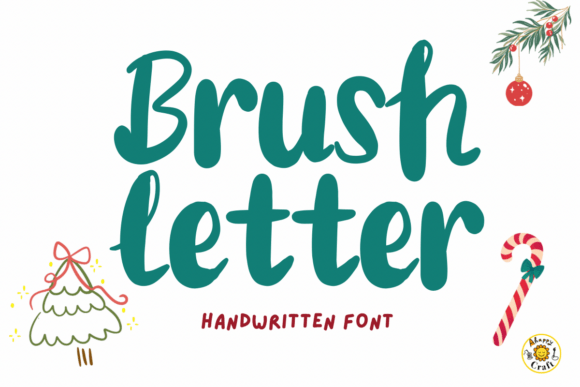
Introducing Brush Letter Font: The Ultimate Holiday Cheer Companion
Are you looking for a font that embodies the spirit of the holiday season? Look no further than Brush Letter Font, an incredibly cheerful, bright, and bold handwritten font designed to spread maximal holiday cheer with its adorable, playful style. In this article, we’ll dive into the unique features of Brush Letter Font and explore its endless possibilities for designers, crafters, and anyone looking to add a touch of festive fun to their projects.
The Unique Features of Brush Letter Font
The font’s defining uniqueness lies in its bubbly, slightly uneven strokes and plump shape, which give the characters a bouncy, handmade look. These distinctive features perfectly complement the vibrant, contrasting color palette, making Brush Letter Font a standout in any design. The font’s playful style is reminiscent of traditional holiday decorations, evoking feelings of nostalgia and warmth.
Ideal Uses for Brush Letter Font
Brush Letter Font is ideal for a wide range of projects that require a happy, colorful, and warm dose of Christmas personality. Some of the most popular uses for this font include:
- Children’s holiday books: Add a touch of magic to your storybook with Brush Letter Font’s playful and cheerful style.
- Festive party invitations: Create eye-catching invitations that set the tone for a fun and festive celebration.
- Custom apparel: Design holiday-themed t-shirts, hoodies, and more with Brush Letter Font’s bold and colorful style.
- Digital Christmas crafts: Add a personal touch to your digital crafts, such as printable art, gift tags, and more.
- Fun classroom decorations: Create engaging and interactive holiday displays with Brush Letter Font’s playful style.
Why Designers and Crafters Love Brush Letter Font
Designers and crafters alike will fall in love with Brush Letter Font’s versatility and ease of use. The font’s bold and playful style makes it perfect for a wide range of projects, from digital designs to handmade crafts. With Brush Letter Font, you can:
- Add a personal touch: The font’s handmade look and feel add a personal touch to any project, making it perfect for crafters and designers who want to create unique and special designs.
- Save time: With its bold and playful style, Brush Letter Font saves you time and effort in creating intricate and detailed designs.
- Experiment with colors: The font’s vibrant and contrasting color palette makes it easy to experiment with different color schemes and combinations.
Tips and Tricks for Using Brush Letter Font
To get the most out of Brush Letter Font, here are some tips and tricks to keep in mind:
- Mix and match: Experiment with different font sizes, colors, and styles to create a unique and eye-catching design.
- Add textures and patterns: Add an extra layer of depth and interest to your design with textures and patterns that complement the font’s playful style.
- Keep it simple: Don’t be afraid to keep your design simple and clean, allowing the font’s bold and playful style to take center stage.
Brush Letter Font is the ultimate holiday cheer companion for designers and crafters. With its unique features, endless possibilities, and ease of use, this font is sure to bring a smile to anyone’s face. Whether you’re creating children’s holiday books, festive party invitations, or custom apparel, Brush Letter Font is the perfect choice for adding a touch of festive fun to your projects. So why wait? Download Brush Letter Font today and start spreading holiday cheer with your designs!